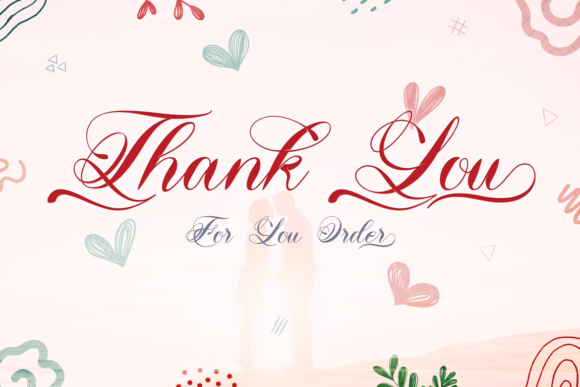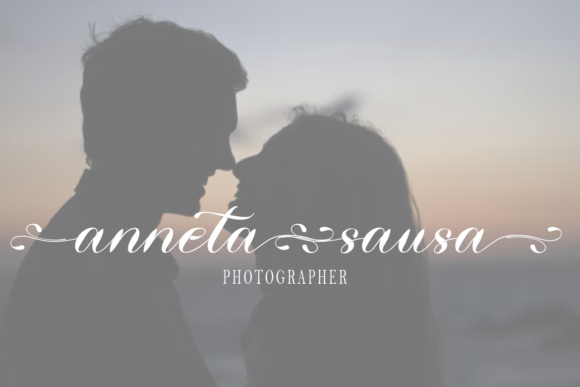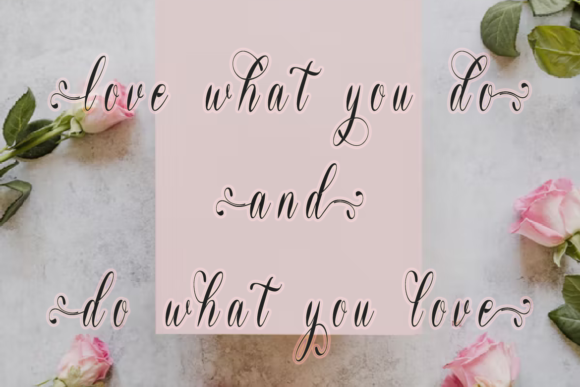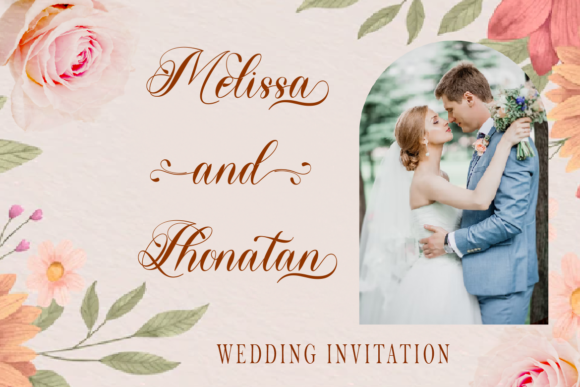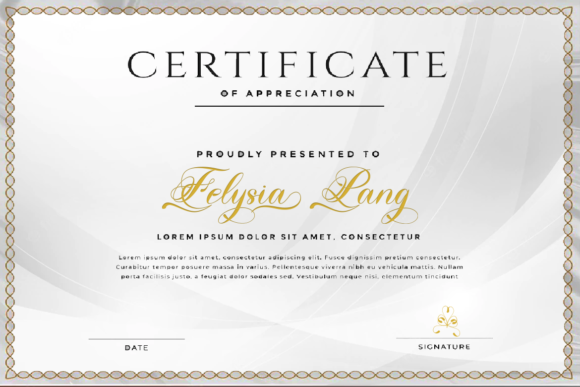
About Fantastic Love Font
“Fantastic Love” is a font that embodies both sleek modern calligraphy and graceful script styles. Its captivating appearance is sure to draw admiration, and it presents an excellent option for creating stunning designs.
The font’s charm lies in its ability to seamlessly merge contemporary elegance with a touch of grace. Its ravishing style makes it an ideal choice for designers looking to add a dash of sophistication to their projects.
“Fantastic Love” stands ready to shine across a variety of designs, from digital graphics to printed materials. Its versatility is particularly evident in its ability to elevate projects that require a balance between modern aesthetics and refined elegance.
In summary, “Fantastic Love” is a font that combines modern calligraphy with graceful script, resulting in a stunning and versatile typeface. Its PUA encoding, along with its aesthetic appeal, makes it a valuable tool for designers seeking to create captivating and elegant designs.